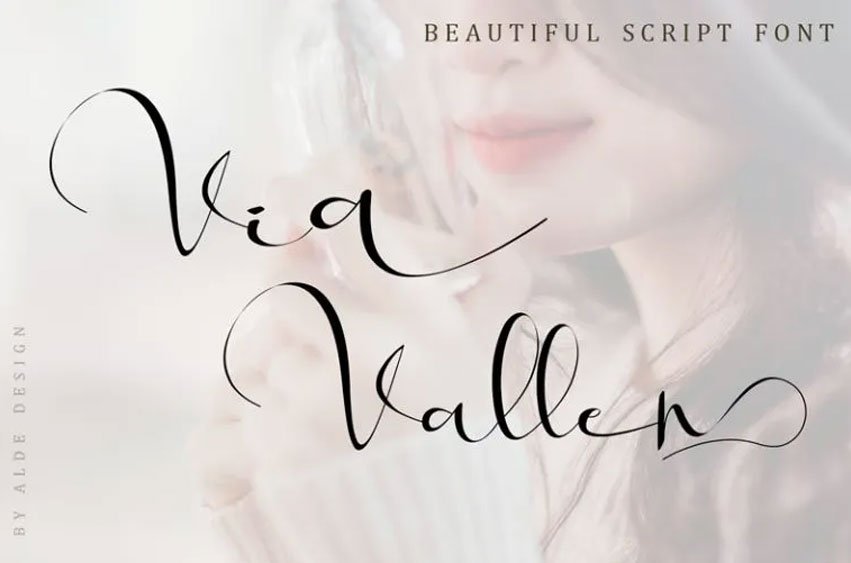
Via Vallen Calligraphy Font is the best fit for a lot of projects such as logos & branding, invitation, stationery, wedding designs, social media posts, advertisements, product packaging and design labels.